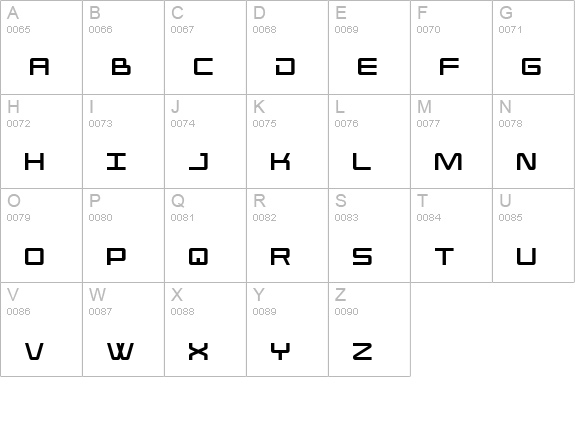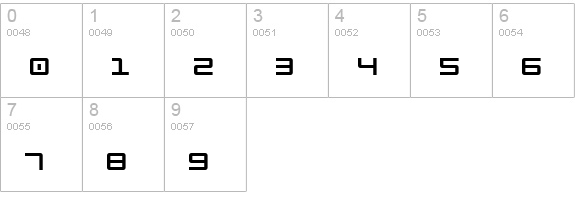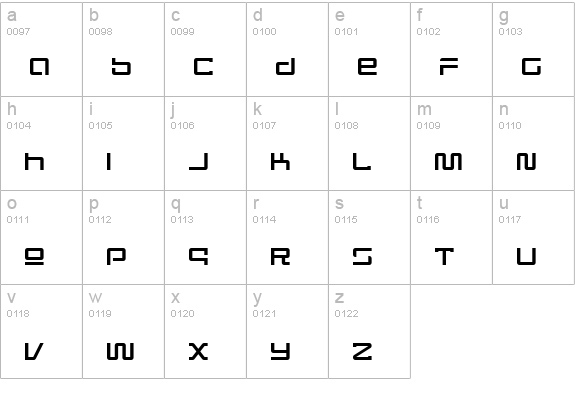
Wormbox Rounded font is a quirky and playful typeface that exudes charm and personality. Its rounded edges and soft curves give it a friendly and approachable appearance, making it perfect for a wide range of design projects. With a wide range of weights and styles, Wormbox Rounded offers versatility and flexibility, allowing you to create eye-catching headlines, engaging body text, and captivating logos. Whether you're designing for a children's book, a website, or a branding project, this font is sure to make a lasting impression. But the best part? Wormbox Rounded font is completely free! That's right, this delightful typeface can be freely downloaded at FontsMarket.com, making it accessible to designers of all levels. Say goodbye to expensive font licenses and hello to unlimited creative possibilities. Wormbox Rounded font's free availability doesn't compromise its quality. It has been meticulously crafted with attention to detail, ensuring smooth curves and clean lines. Each character is beautifully balanced and harmonious, creating a visually pleasing aesthetic. The versatility of Wormbox Rounded font is further enhanced by its wide language support, allowing you to use it in various projects across different regions and cultures. Its legibility and readability make it an excellent choice for both print and digital media. So why wait? Download Wormbox Rounded font for free at FontsMarket.com and elevate your designs to the next level. Whether you're a professional designer or a hobbyist, this font will add a touch of whimsy and playfulness to your creations. Embrace its unique charm and let your imagination run wild.